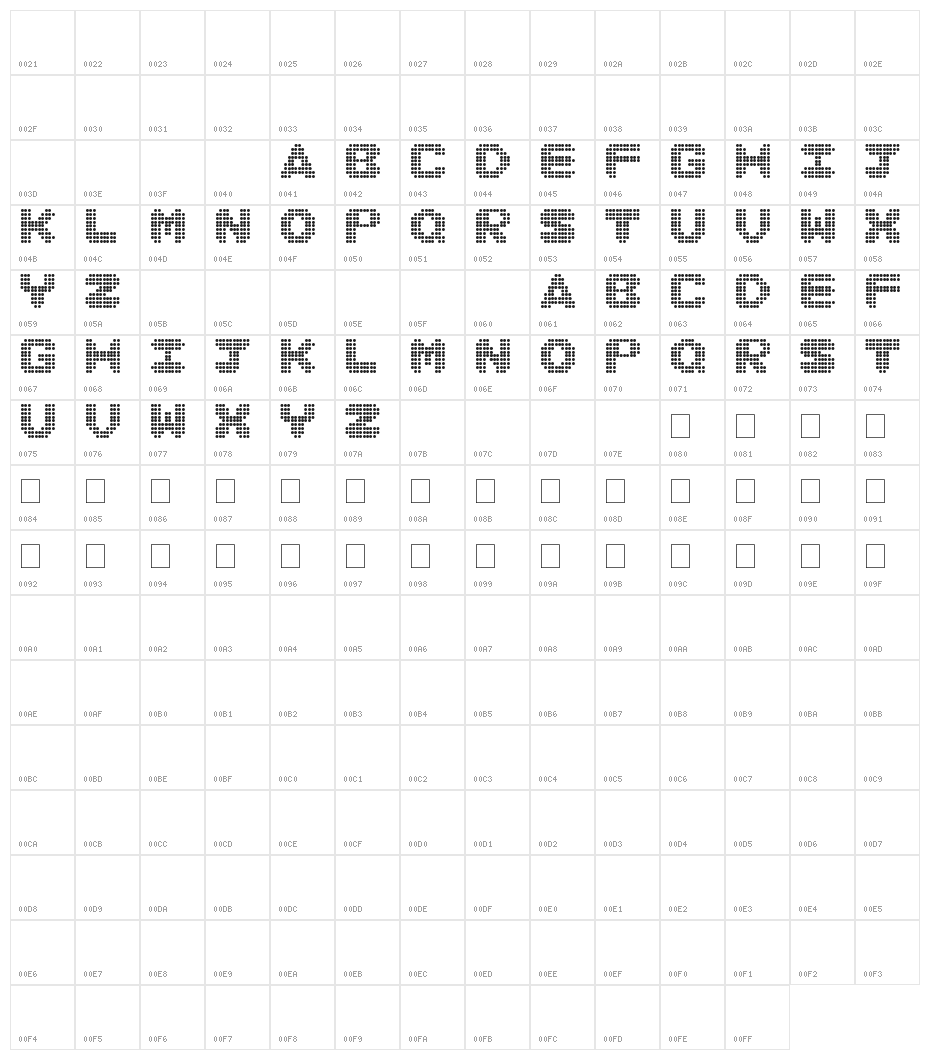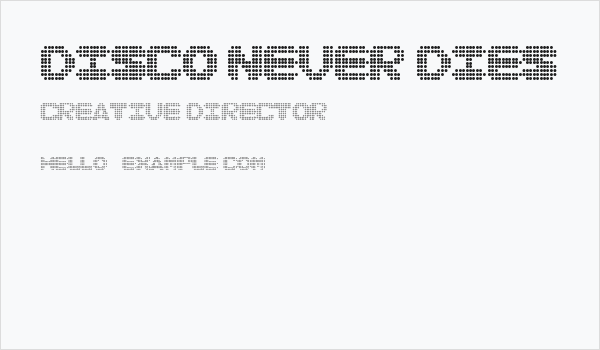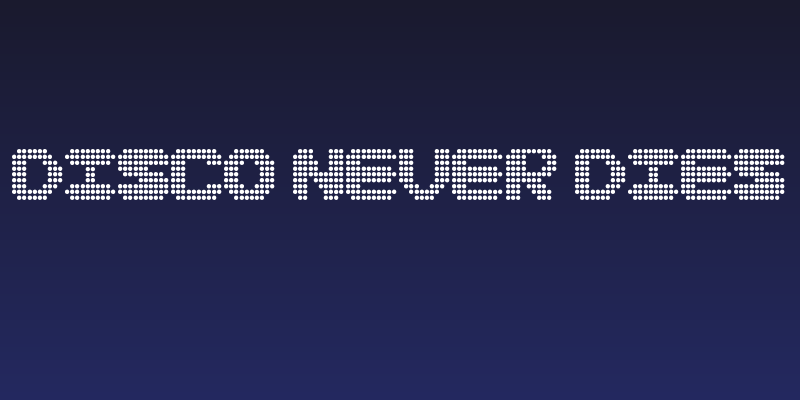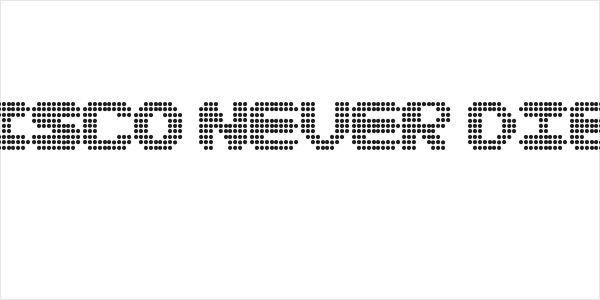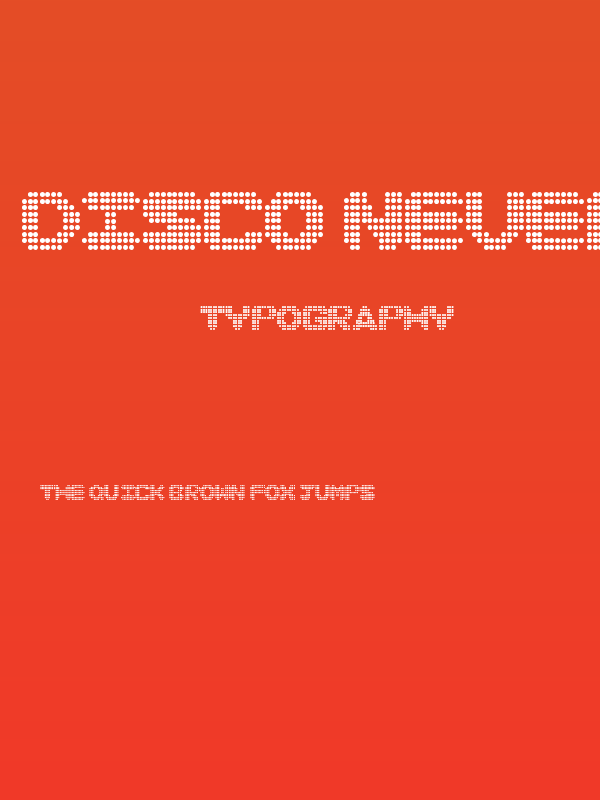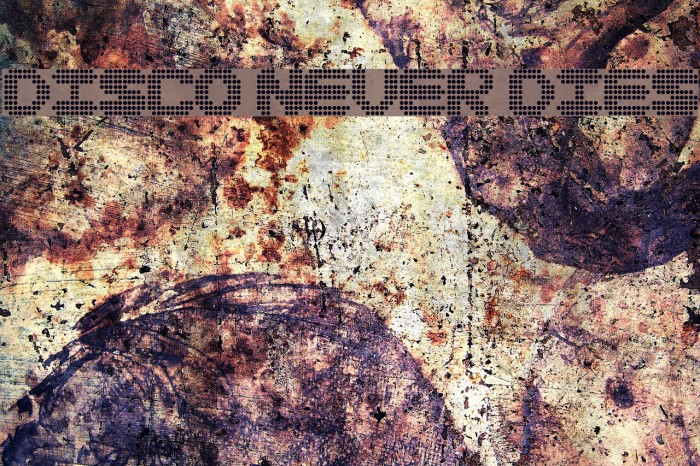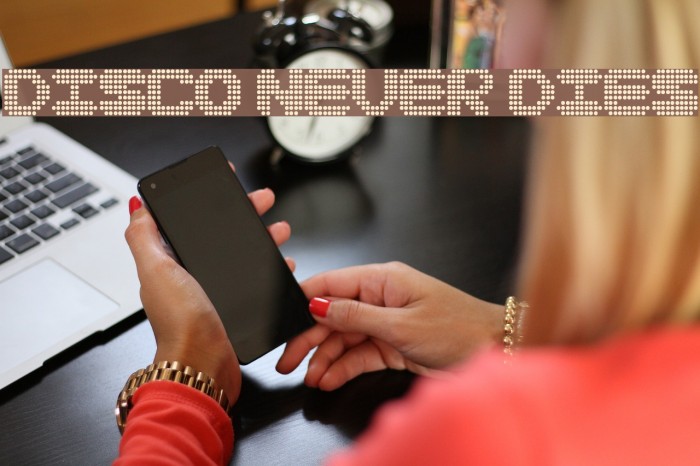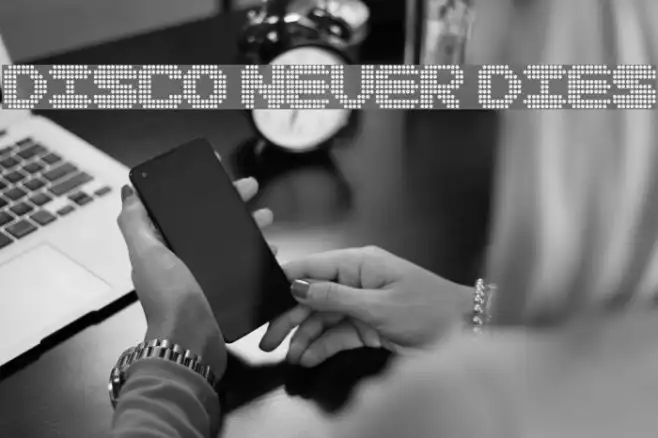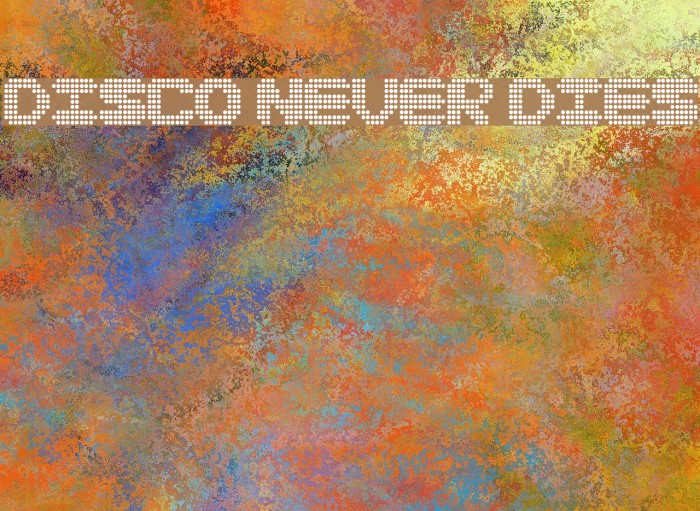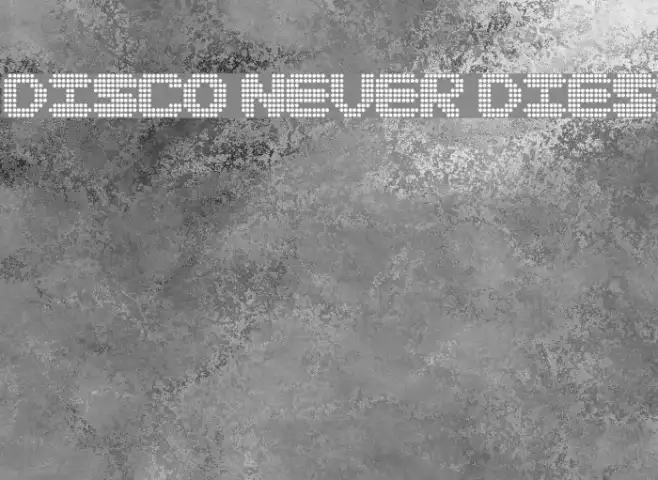
Disco never dies Font
Disco never dies Description
This font is a vibrant and playful design that captures the essence of a retro disco era. Each character is constructed from a series of small, evenly spaced dots, creating a digital display effect reminiscent of marquee lights or LED screens. The uniformity of the dots gives the font a structured and geometric appearance, while the overall style maintains a sense of fun and nostalgia. The uppercase letters are bold and prominent, making them ideal for attention-grabbing headlines or signage. The font's unique dotted pattern adds a decorative touch, making it suitable for projects that aim to evoke a sense of excitement and energy.
| Overall Style | Vintage |
| Proposed Projects | Ideal for retro-themed posters, party invitations, event signage, and digital displays. |